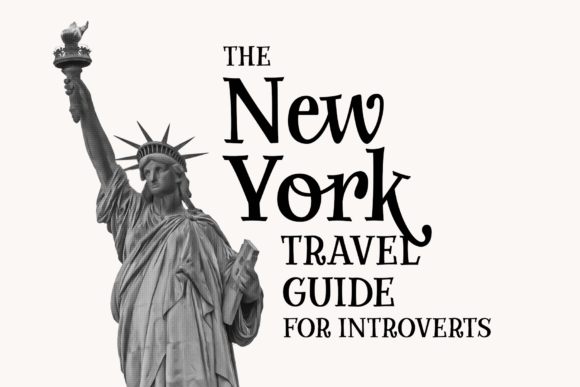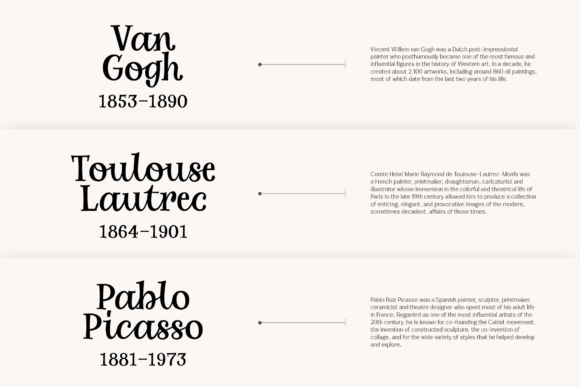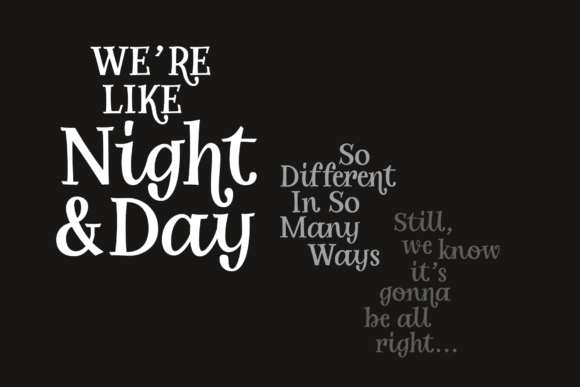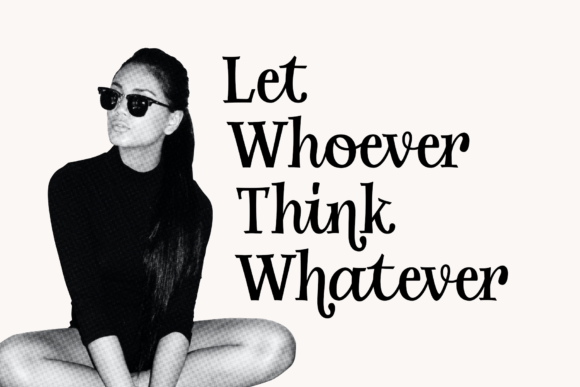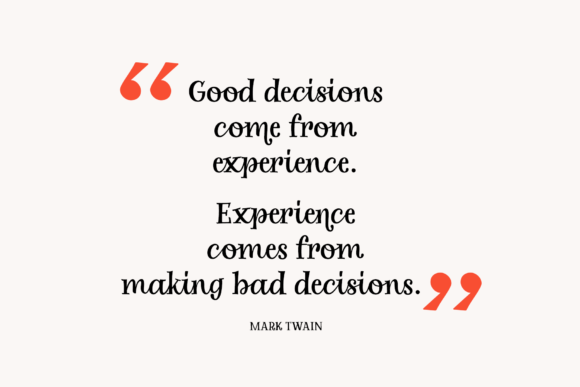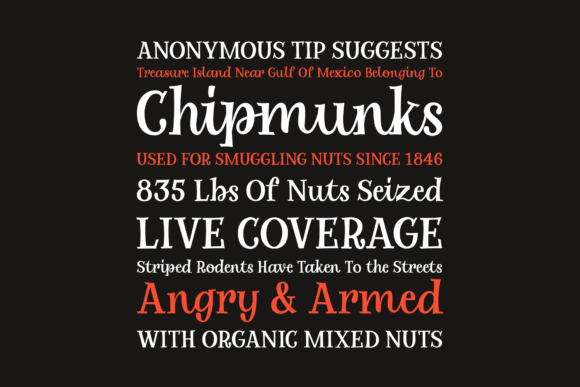
Alrighty Then Font: The Cool and Trendy Serif Font for Designers and Crafters
Are you tired of using the same old fonts for your digital designs, presentations, and crafting projects? Look no further! Alrighty Then is a cool and trendy serif font that is perfect for adding a touch of personality to your work. Whether you’re a designer, crafter, or simply someone who loves to create, Alrighty Then is a font that you won’t want to miss.
What Makes Alrighty Then Font So Special?
Alrighty Then is a serif font that boasts a unique and stylish design. Its distinctive features make it stand out from other fonts, making it perfect for a variety of projects. Here are just a few reasons why Alrighty Then is a must-have font for designers and crafters:
- Trendy and Modern: Alrighty Then has a modern and trendy feel to it, making it perfect for designers who want to create fresh and contemporary designs.
- Versatile: This font is incredibly versatile and can be used for a wide range of projects, from digital designs and presentations to crafting and greeting cards.
- Easy to Read: Despite its unique design, Alrighty Then is easy to read, making it perfect for body text and other large blocks of text.
- Highly Customizable: Alrighty Then can be customized to fit your specific needs, allowing you to adjust the font size, style, and color to match your brand or project’s aesthetic.
Uses for Alrighty Then Font
Alrighty Then is a font that can be used in a variety of ways. Here are just a few ideas to get you started:
- Digital Designs: Use Alrighty Then to add a touch of personality to your digital designs, such as social media graphics, blog posts, and website headers.
- Presentations: Add some flair to your presentations with Alrighty Then, making them more engaging and memorable for your audience.
- Crafting: Use Alrighty Then to create custom signs, banners, and other crafting projects that require a personal touch.
- Greeting Cards: Make your greeting cards stand out with Alrighty Then, adding a touch of elegance and sophistication to your designs.
Tips for Using Alrighty Then Font
To get the most out of Alrighty Then, here are a few tips to keep in mind:
- Pair it with Other Fonts: Alrighty Then looks great when paired with other fonts, such as sans-serif fonts or script fonts. Experiment with different combinations to find the perfect look for your project.
- Adjust the Font Size: Alrighty Then can be used at a variety of font sizes, from large headings to smaller body text. Experiment with different sizes to find the perfect fit for your project.
- Use it for Headings: Alrighty Then is perfect for headings and titles, adding a touch of personality and flair to your designs.
| Font Name | Alrighty then Font |
| Author | Ayca Atalay |
Alrighty Then is a cool and trendy serif font that is perfect for designers and crafters. Its unique design, versatility, and ease of use make it a must-have font for any project. Whether you’re creating digital designs, presentations, or crafting projects, Alrighty Then is a font that you won’t want to miss. So why wait? Download Alrighty Then today and start adding a touch of personality to your work!
- What type of font is Alrighty Then? Alrighty Then is a serif font.